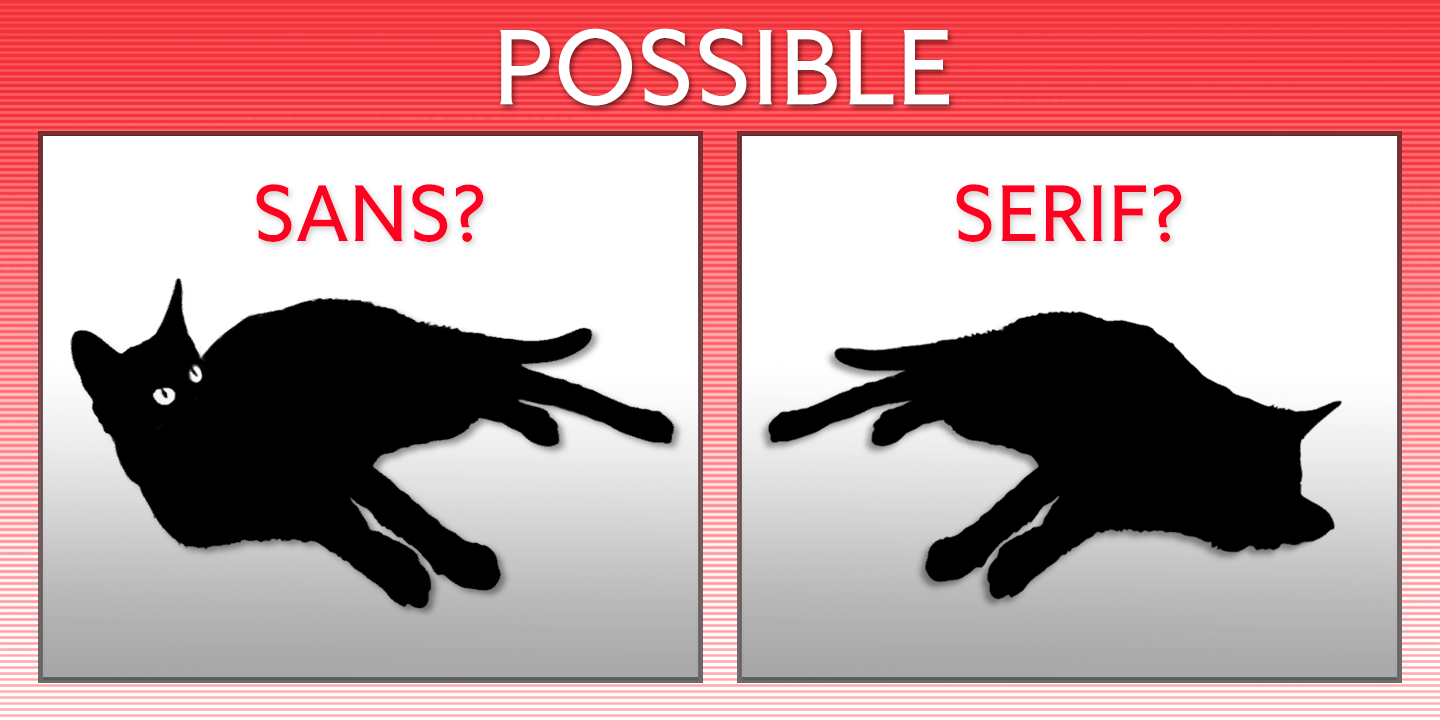
Looking for a versatile and modern typeface? Possible Font Free Download offers a clean, geometric design perfect for both digital and print projects. Note: You must purchase this font for commercial use, but it’s available for free testing.
This font works exceptionally well for logos, branding, website headers, and editorial designs. Its balanced proportions and contemporary feel make it ideal for startups, tech companies, and creative agencies.
What makes Possible Font exciting is its adaptability—it looks equally stunning in bold headlines and subtle body text. The smooth curves and sharp edges give it a professional yet approachable vibe, ensuring readability across different mediums.
The Possible Font family includes multiple weights (Light, Regular, Bold) and stylistic alternates, allowing for dynamic typography combinations. Whether you’re designing a minimalist poster or a sleek UI, this font delivers consistency and flair.
From social media graphics to packaging design, Possible Font Free Download elevates any project with its modern aesthetic. Try it now and see how it enhances your visual storytelling!